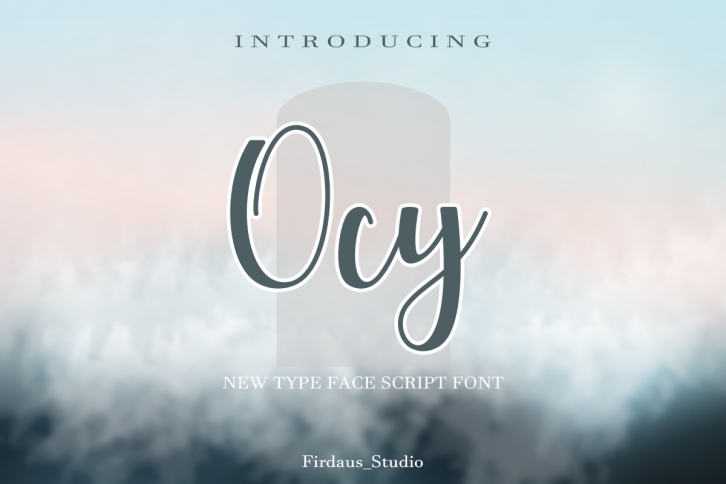
Ocy is a font created for millennials era businesses in order to reach all of their high-quality needs. It has a classy, elegant and modern look that can be used for logos, branding, invitations, stationery, wedding designs, social media posts, and much more!